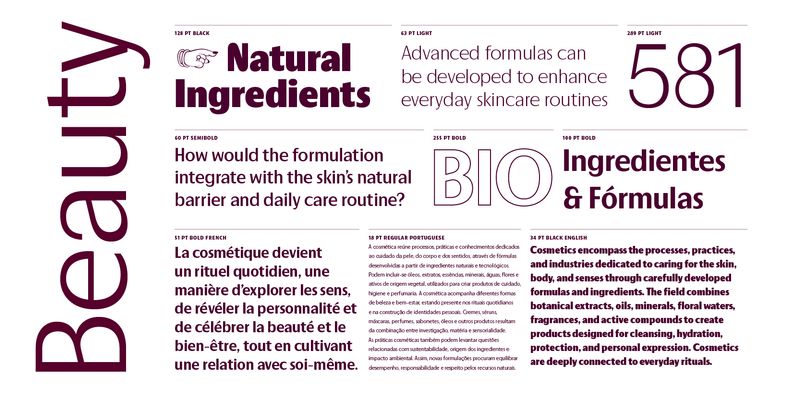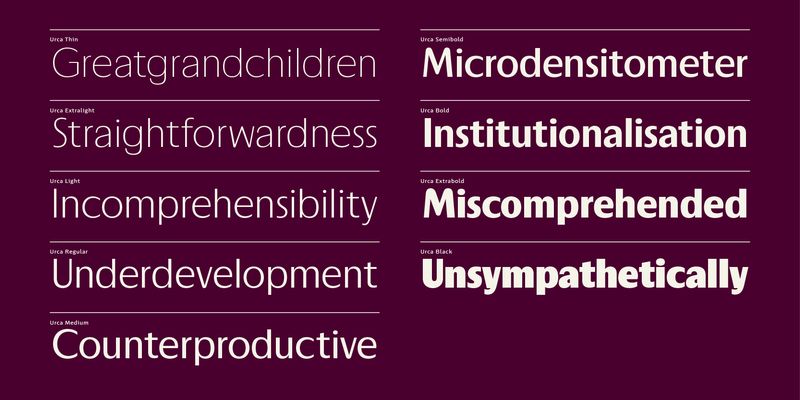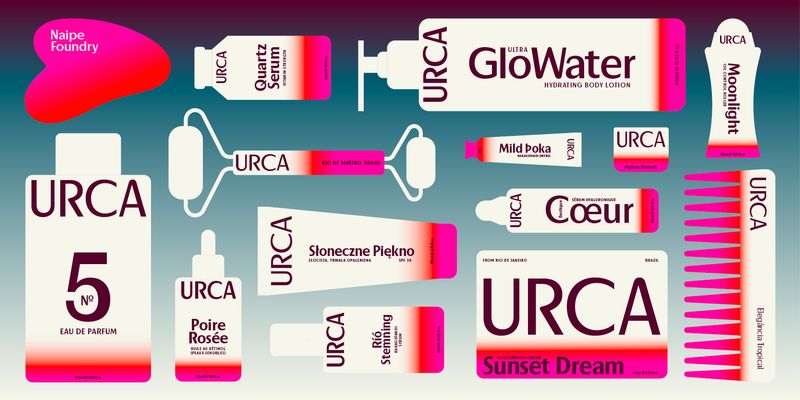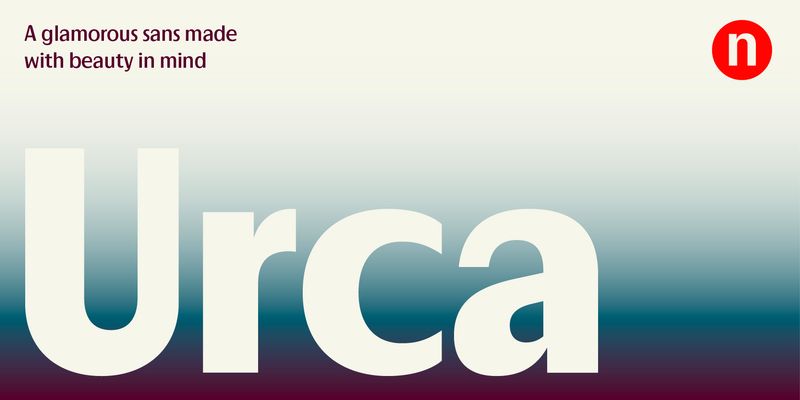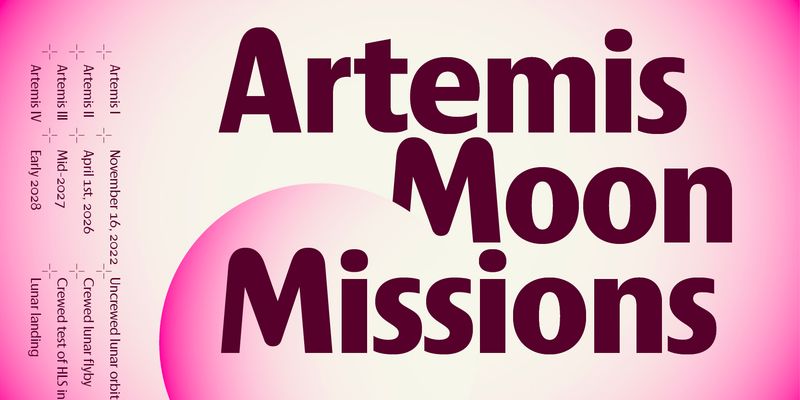
Urca is a contrasted sans inspired by the quiet glamour of Rio’s Urca neighborhood.
Once home to a legendary casino where lavish balls brought old-world glamour to the city, Urca is a place where time stood still. This 9-weight family brings that same timelessness: sophisticated but warm and relaxed, something that feels effortlessly luxurious rather than dressed up for the occasion.
Made with beauty, cosmetics and fashion in mind, Urca brings a little of that old Rio glamour to packaging and branding.